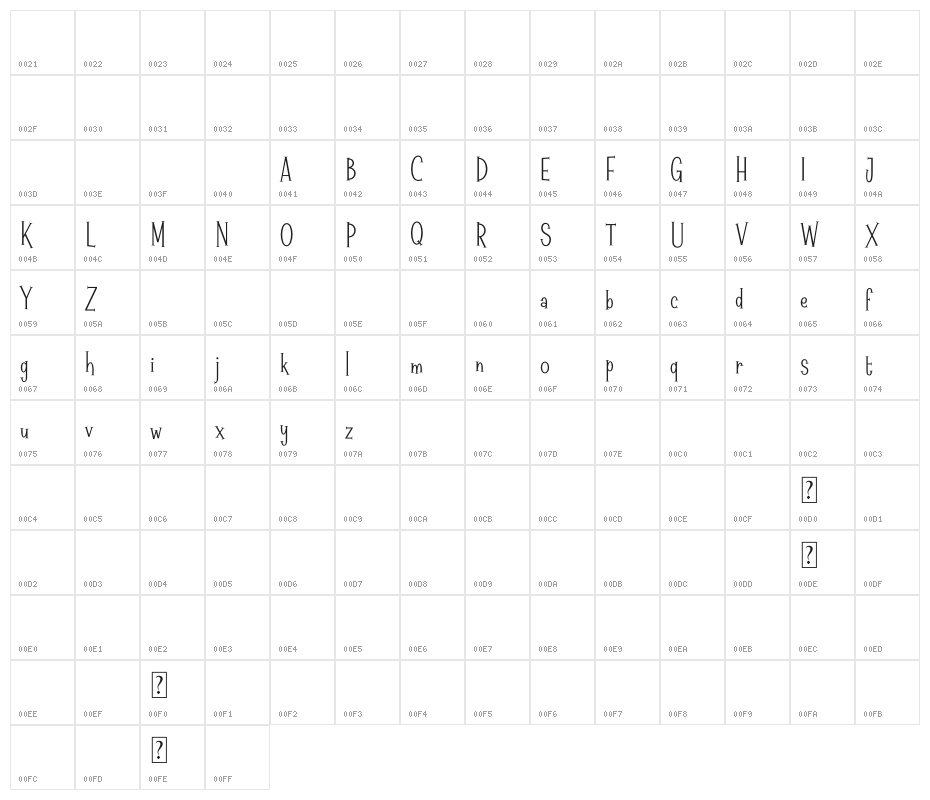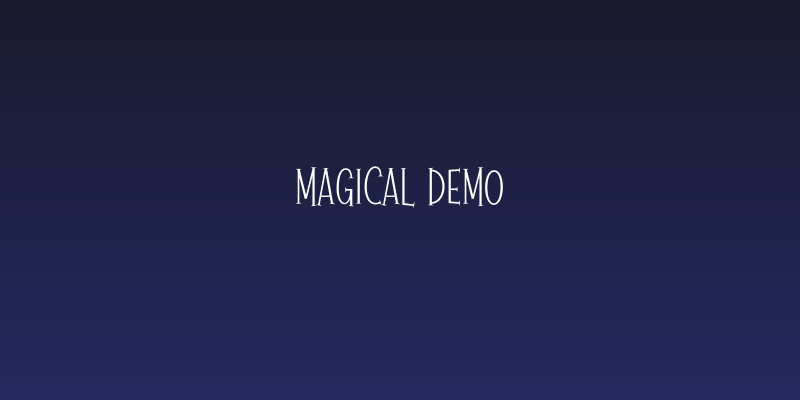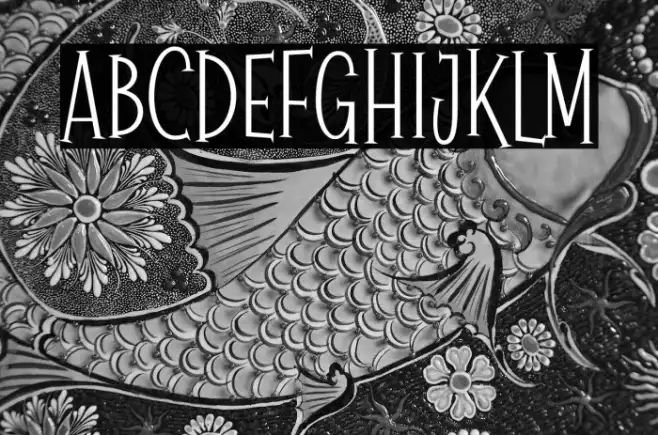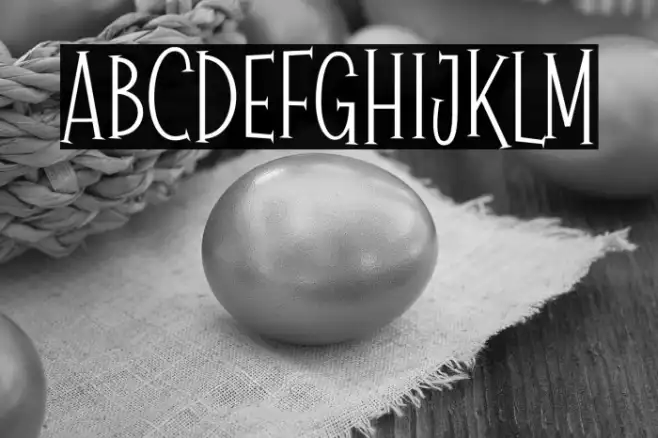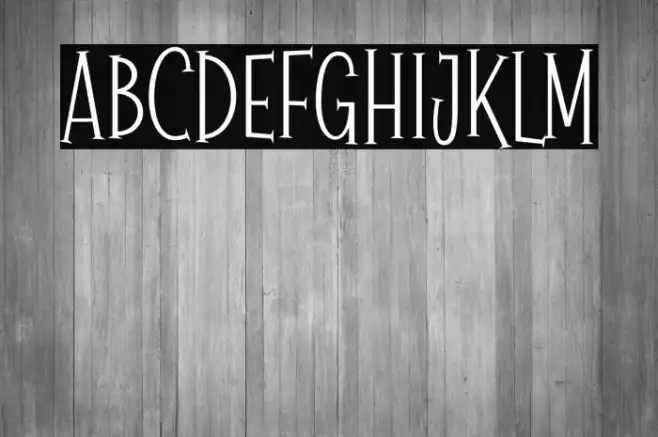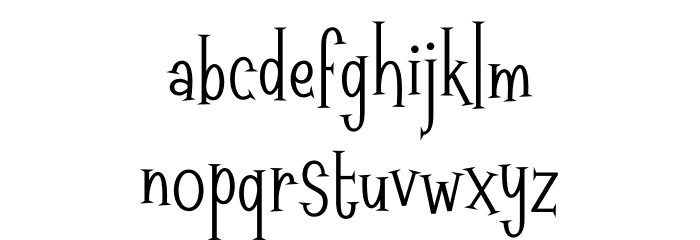
Magical Demo Font
Magical Demo Description
This font features a whimsical and playful design, characterized by its tall, narrow letters with slight curves and unique serifs. The uppercase letters have a distinct, elongated appearance, while the lowercase letters maintain a consistent style with subtle variations in height and width. The font's quirky nature is enhanced by its irregular strokes and decorative elements, making it ideal for creative and artistic projects. Its overall design exudes a sense of magic and fantasy, perfect for capturing attention and adding a touch of enchantment to any text.
| Proposed Projects | Ideal for fantasy-themed designs, children's books, greeting cards, and creative branding. |